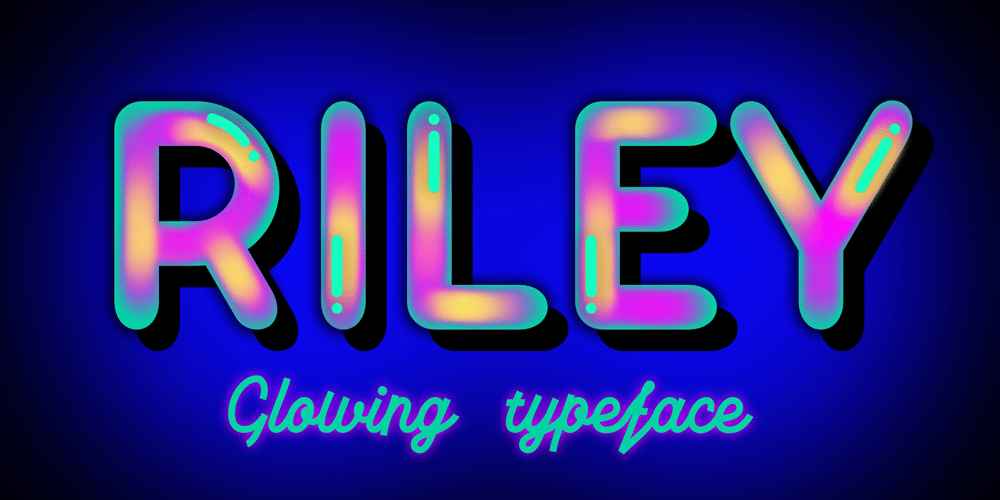
Riley Wow
Riley Wow font
Riley Wow Font Family was designed by Alex Etewut and published by Etewut. Riley Wow contains 3 styles and family package options. Riley Wow typeface is rounded sans serif. It includes 3 font styles that can be used together to call glowing effect. The typeface supports all European languages based on Latin alphabet.